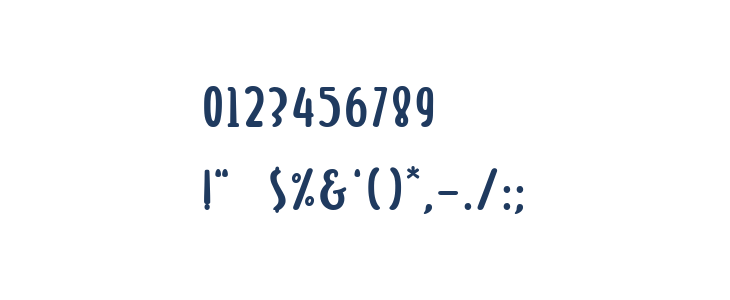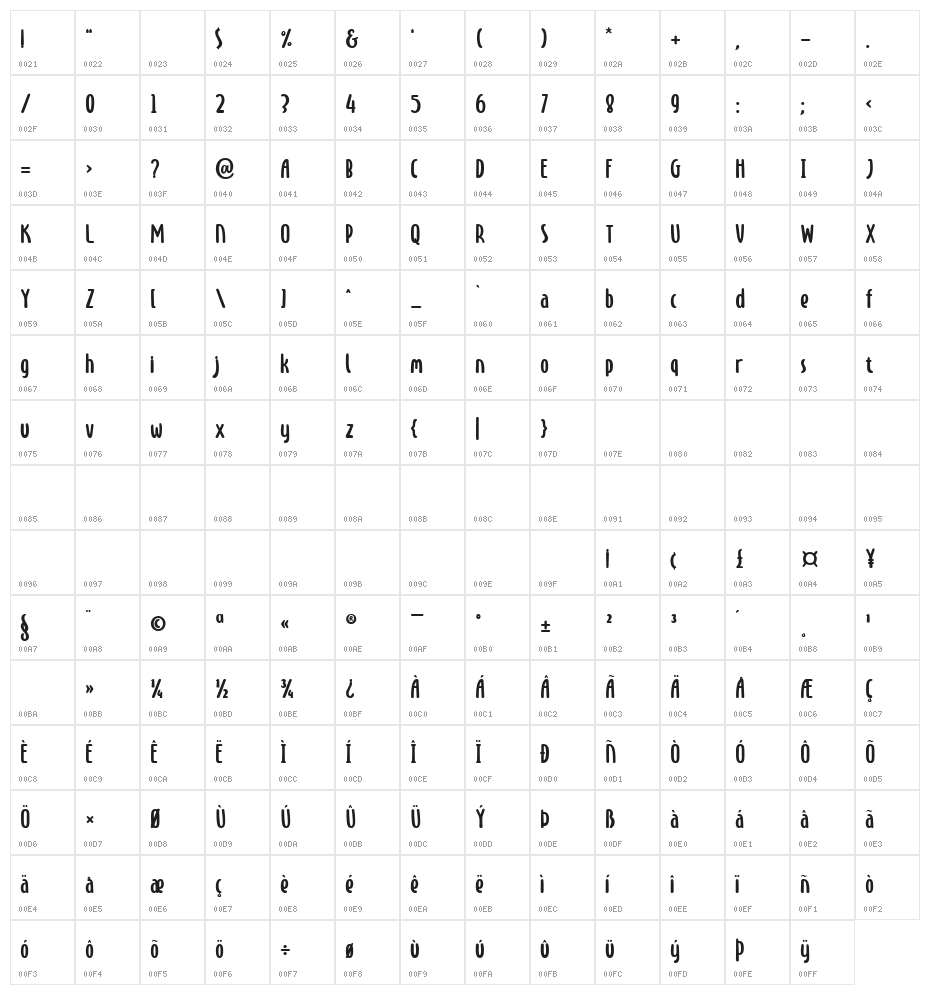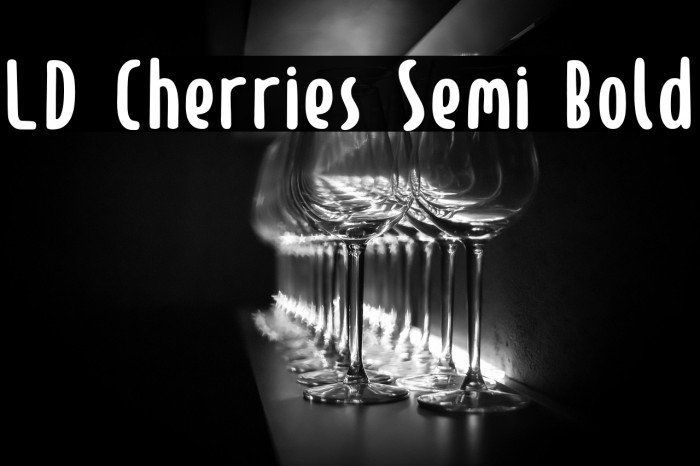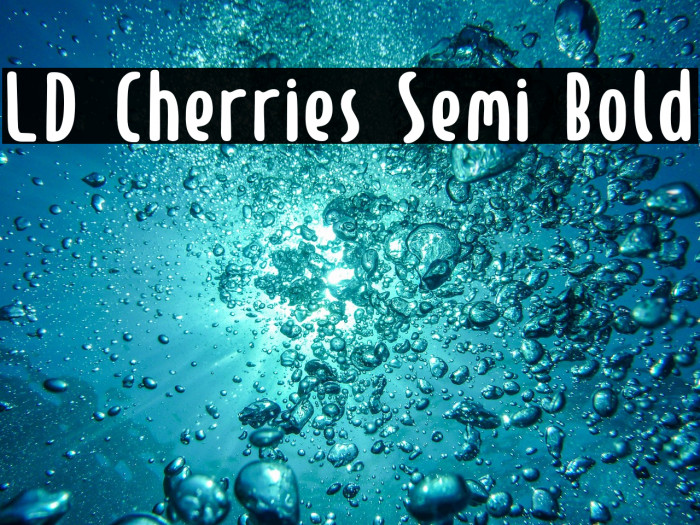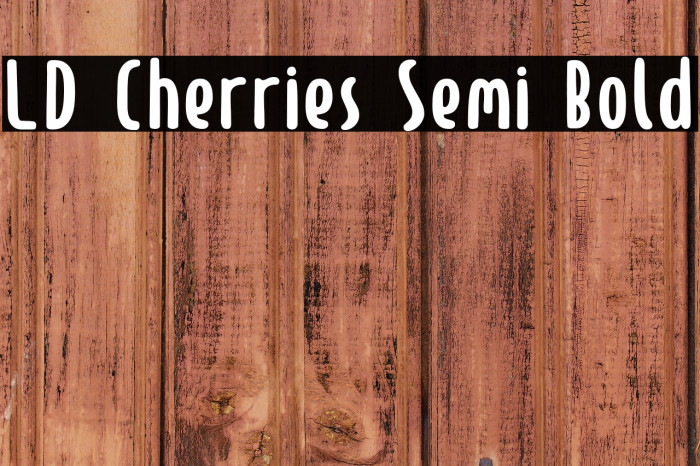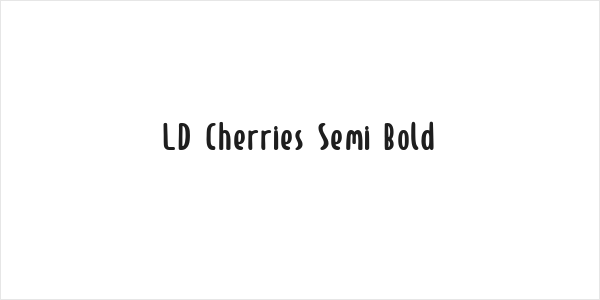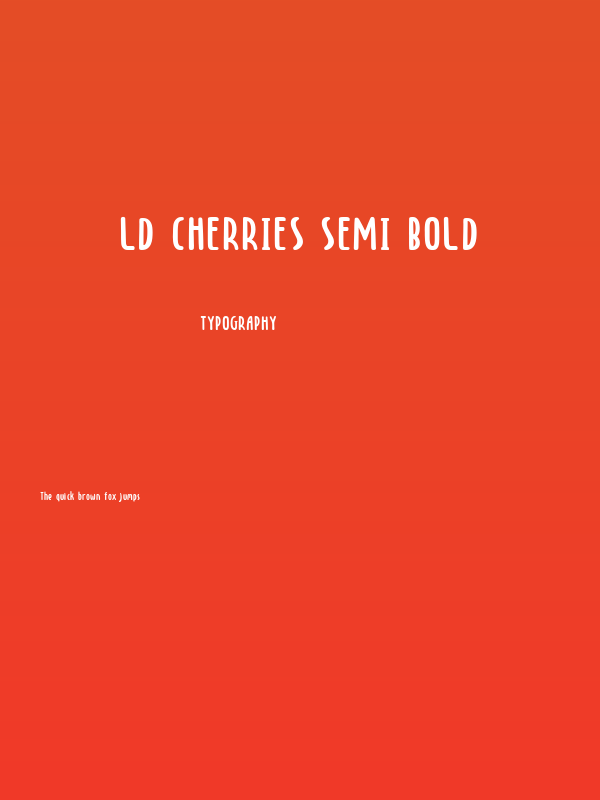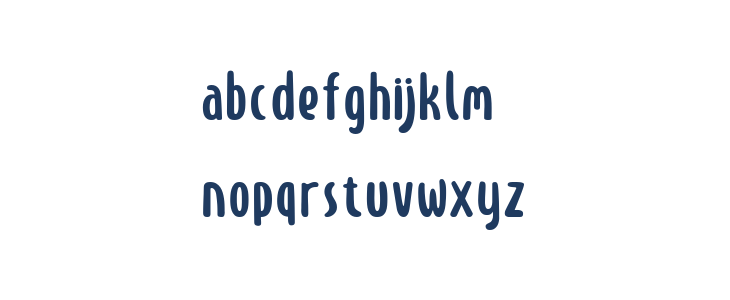
LD Cherries Semi Bold Font
LD Cherries Semi Bold Description
This font features a playful and rounded design, characterized by its semi-bold weight and smooth curves. The letters have a friendly and approachable appearance, with consistent stroke thickness that adds to its readability. The uppercase and lowercase letters maintain a uniform style, while the numerals and special characters complement the overall aesthetic. The font's rounded edges and slightly condensed form give it a modern yet whimsical feel, making it suitable for a variety of creative applications.
| Overall Style | Modern, Whimsical |
| Use Case | Headlines, Logos, Casual Text |
| Proposed Projects | Ideal for children's books, playful branding, greeting cards, and casual digital content. |